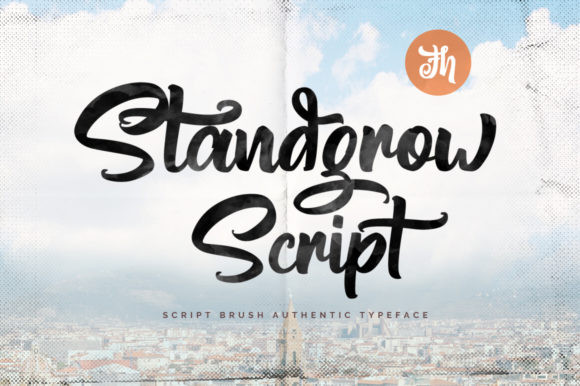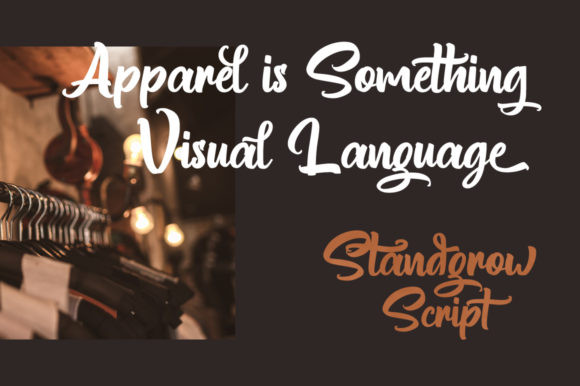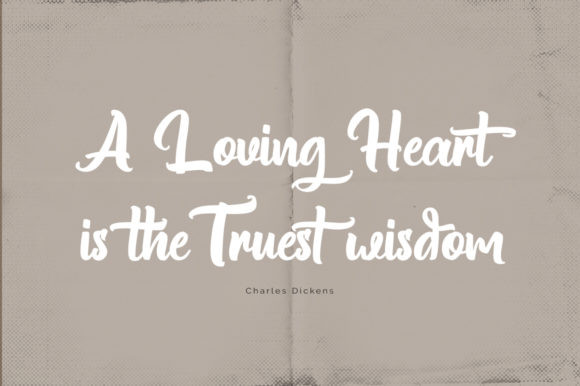
Standgrow Font
Standgrow is a lovely paint brushed handwritten font. Daring, thick lettered and neat, this font will make each of your designs stand out.